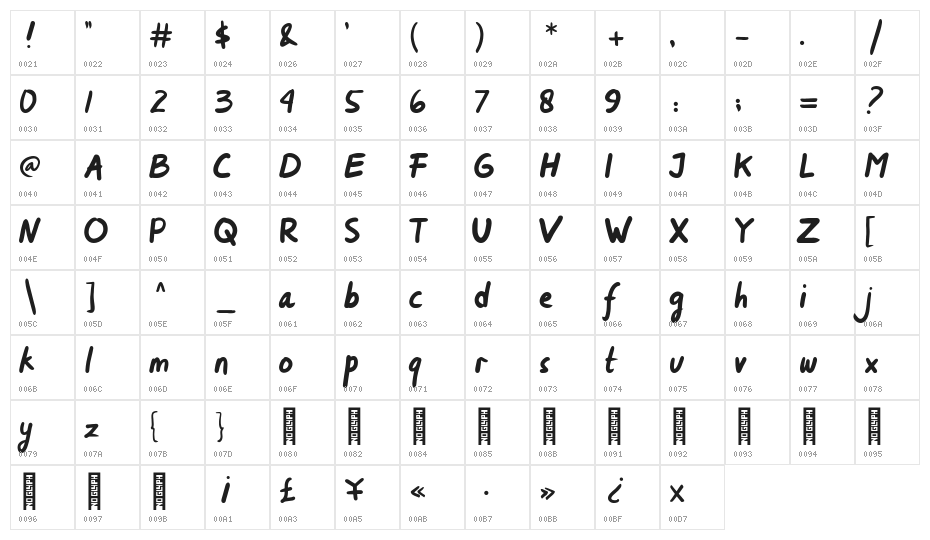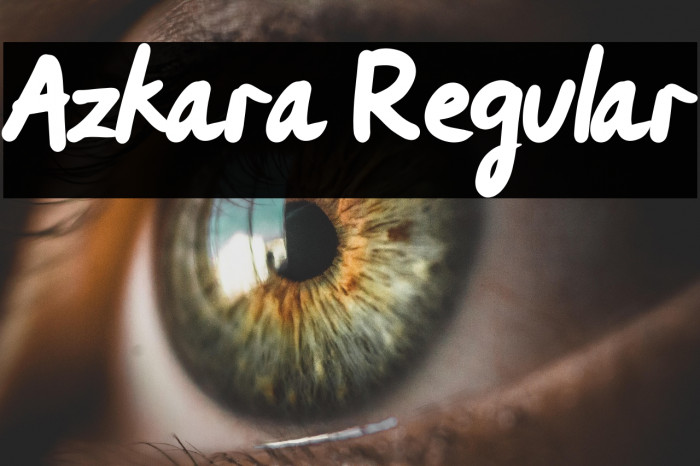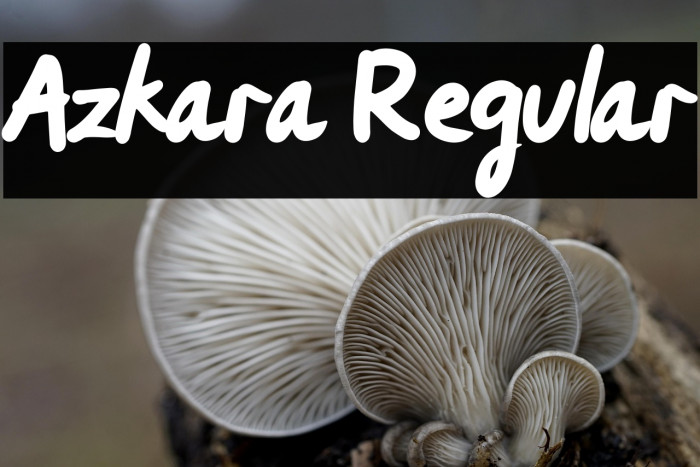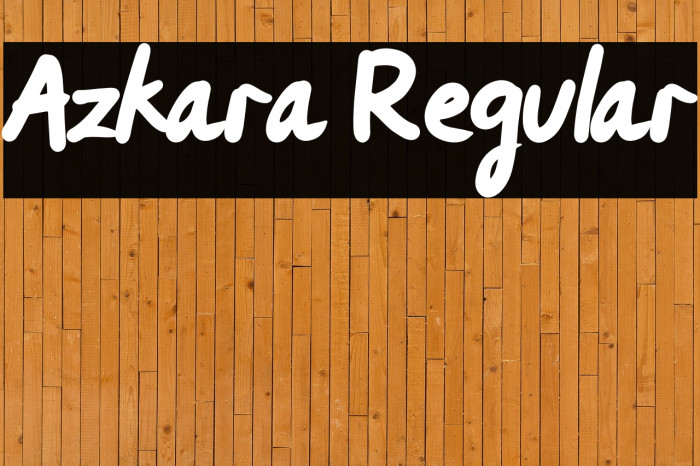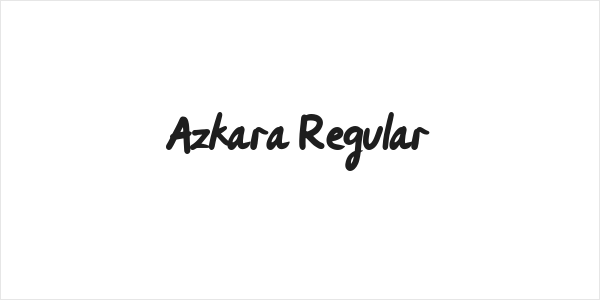
Azkara Regular Font
Azkara Regular Description
This font features a bold, handwritten style with smooth, rounded edges and a playful, casual appearance. The letters are slightly slanted, giving a dynamic and energetic feel. Uppercase and lowercase characters maintain a consistent flow, with a natural, organic look. The numbers and special characters complement the overall style, making it versatile for various applications. Its informal yet clear design makes it suitable for creative projects that require a personal touch.
| Overall Style | Casual |
| Use Case | Logos, Headlines, Posters |
| Proposed Projects | Ideal for greeting cards, invitations, posters, and branding projects that require a personal and approachable feel. |